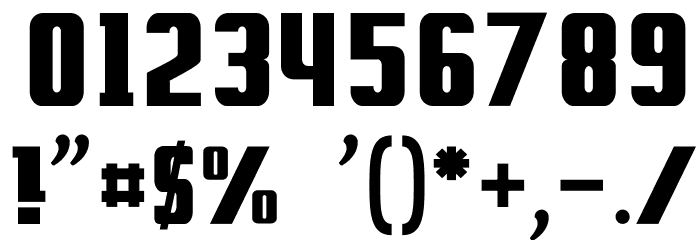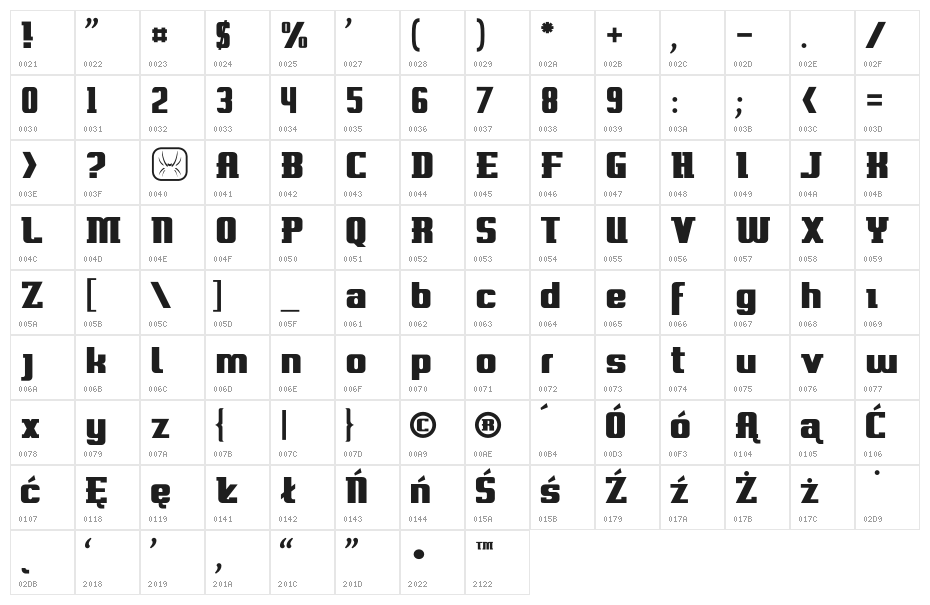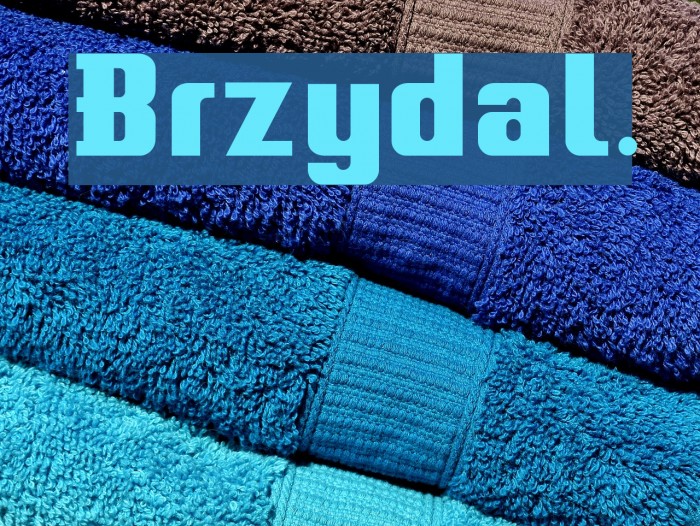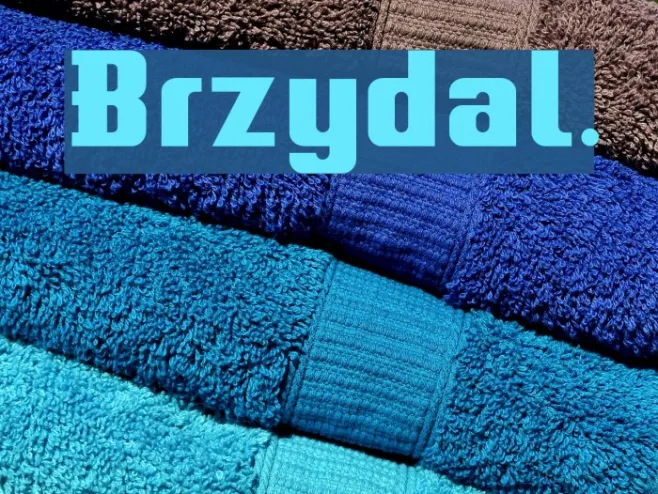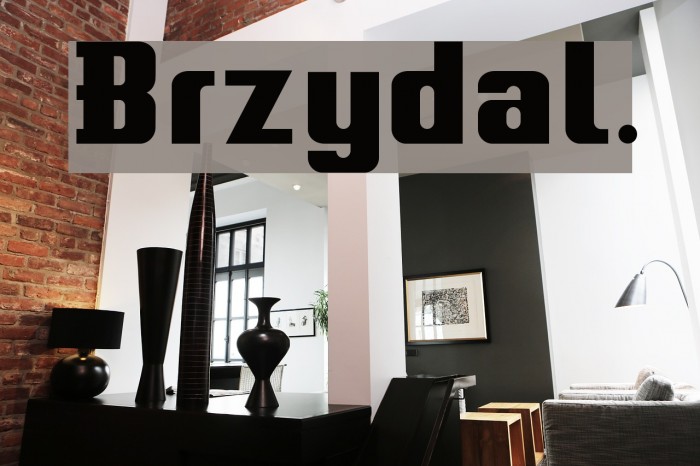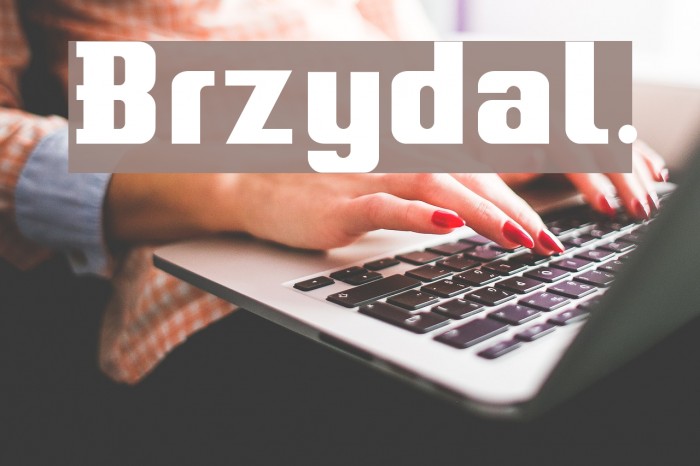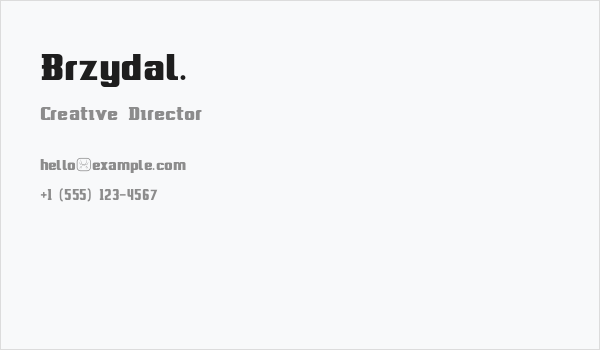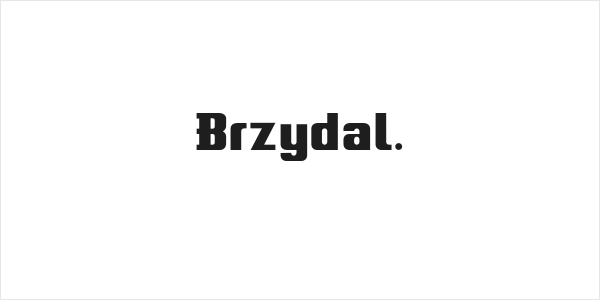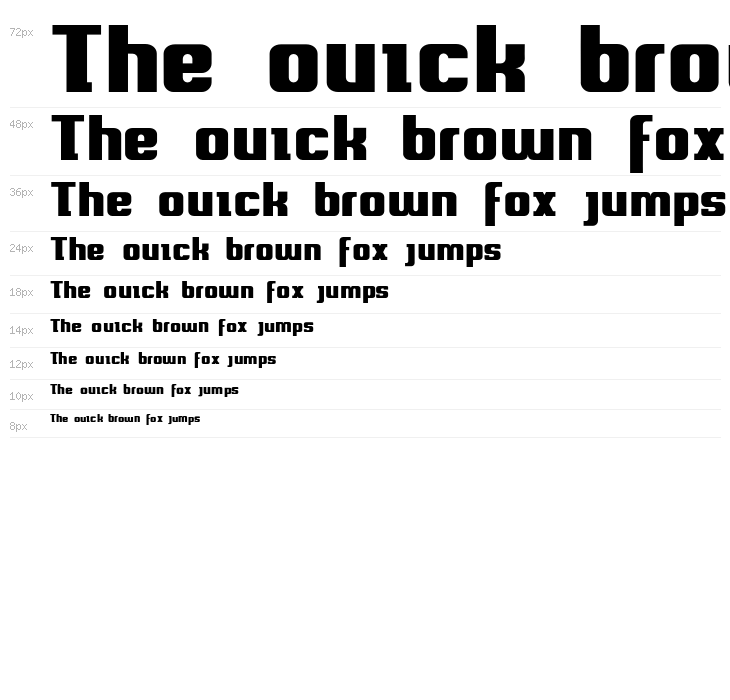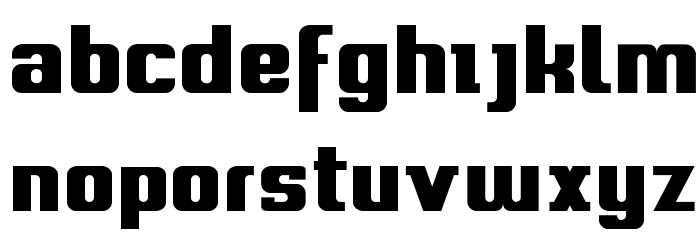
Brzydal. Font
Brzydal. Description
This font features a bold and impactful design with a strong presence. The characters are blocky and robust, with a geometric structure that gives them a modern and industrial feel. The uppercase letters are particularly striking, with a uniform height and width that create a cohesive look. The lowercase letters maintain the same boldness, ensuring readability while adding a touch of uniqueness with slightly rounded edges. The numerals are consistent with the overall style, providing clarity and balance. Special characters are well-integrated, maintaining the font's bold and assertive aesthetic.
| Proposed Projects | Ideal for branding, posters, and headlines where a strong, impactful presence is needed. |